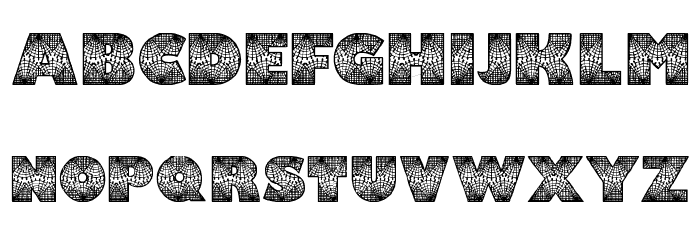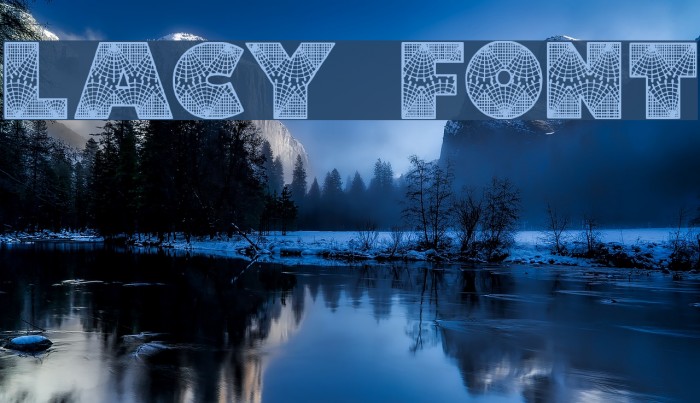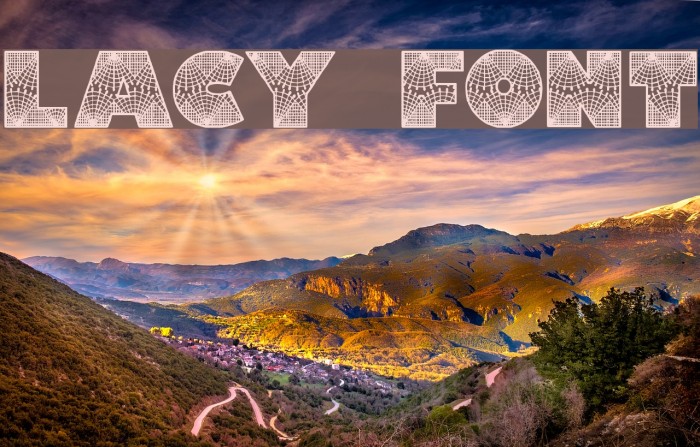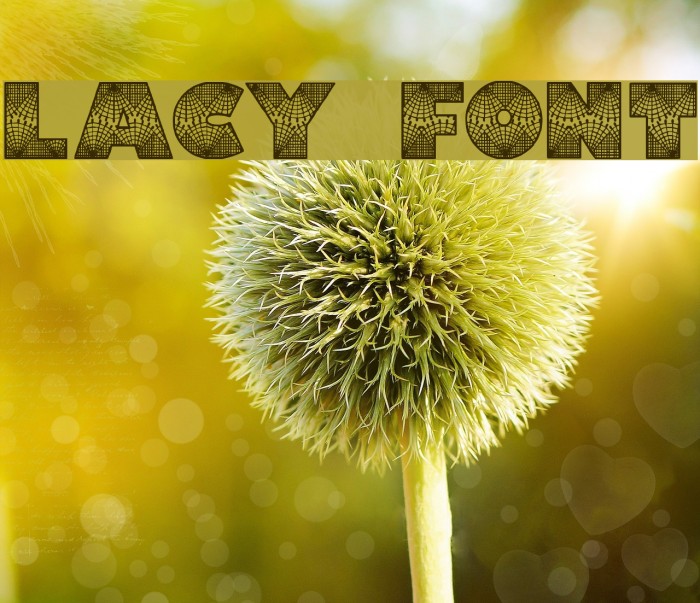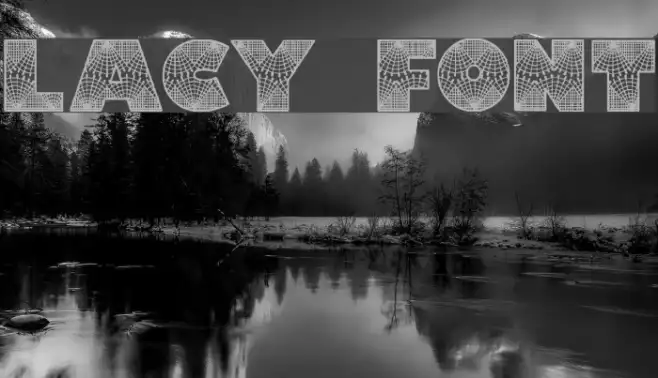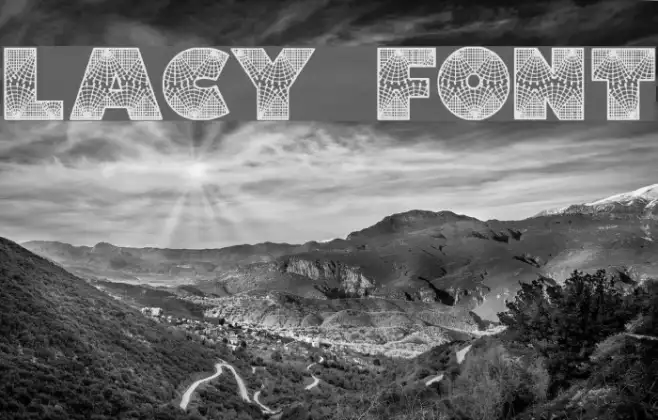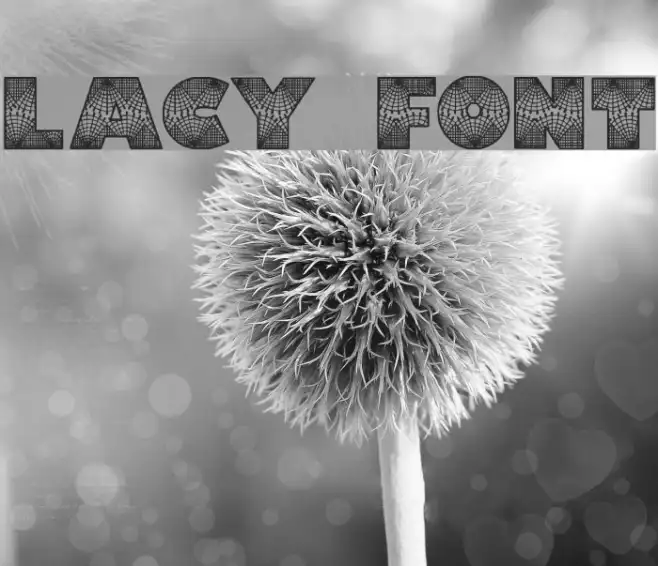
Lacy Font
This font features an intricate lace-like pattern within each character, creating a unique and decorative appearance. The uppercase letters are bold and prominent, with each character filled with detailed, interwoven designs that resemble delicate lacework. The absence of lowercase letters and numbers emphasizes its decorative nature, making it ideal for specific design purposes. The font's distinct style is eye-catching and artistic, suitable for projects that require a touch of elegance and creativity. Its decorative elements make it less suitable for body text but perfect for standout headlines or artistic displays.
A decorative font with intricate lace-like patterns in bold uppercase letters.